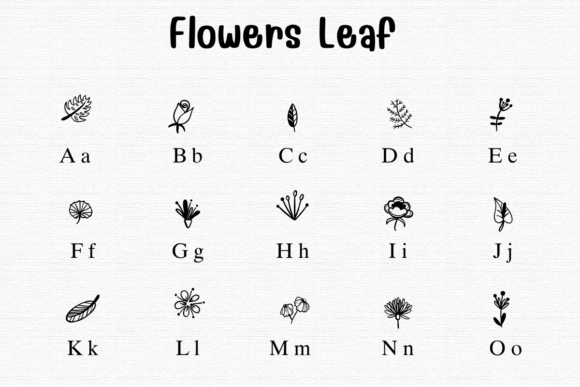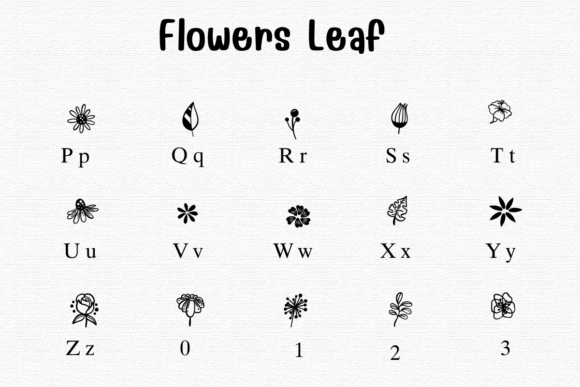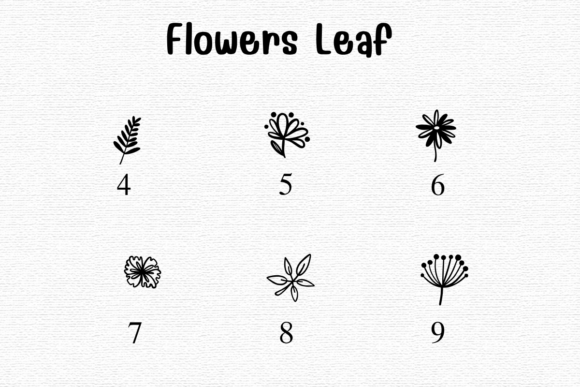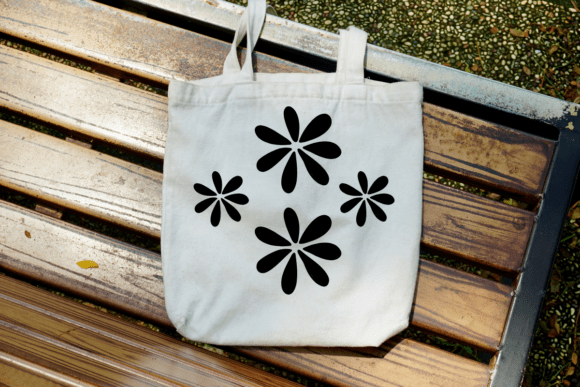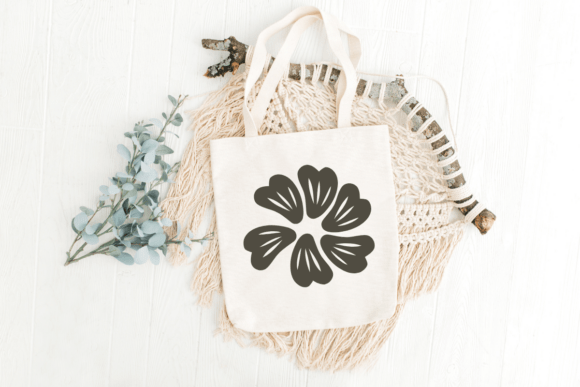
Introducing Flowers Leaf Font: A Delightful Addition to Your Design Arsenal
Are you a designer, crafter, or creative enthusiast looking for a unique and versatile font to elevate your projects? Look no further than the Flowers Leaf Font, a charming and whimsical typeface that is sure to capture the hearts of those who appreciate the beauty of nature. In this article, we’ll explore the features and benefits of Flowers Leaf Font, and how it can be used to add a touch of elegance and playfulness to your designs.
What is Flowers Leaf Font?
Flowers Leaf Font is a carefully crafted typeface that combines the delicate beauty of flowers and leaves with a modern and artistic twist. This font is perfect for designers who want to add a touch of whimsy and charm to their projects, whether it’s for a branding campaign, a DIY craft, or a creative art piece. With its intricate details and curly flourishes, Flowers Leaf Font is sure to make your designs stand out from the crowd.
Key Features of Flowers Leaf Font
- Wide Range of Uses: This font is perfect for various design projects, including but not limited to, logos, branding, social media graphics, crafts, and digital art.
- Unique and Whimsical: The font’s unique design, inspired by flowers and leaves, adds a touch of elegance and playfulness to any design project.
Exploring the Coloring Outline and Dingbats Features
One of the standout features of Flowers Leaf Font is its inclusion of coloring outline and dingbats. These features allow designers to add an extra layer of creativity to their projects. The coloring outline feature provides a detailed structure that can be filled with colors, patterns, or textures, while the dingbats offer a set of decorative symbols and icons that can be used to embellish designs.
Whether you’re creating a doodle cartoon, a craft project, or a professional design piece, the coloring outline and dingbats in Flowers Leaf Font offer endless possibilities for customization and creativity.
Flowers Leaf Font is a delightful and versatile typeface that offers designers and crafters a unique way to add a touch of nature-inspired beauty to their projects. With its multiple formats, compatibility with popular design software, and features like coloring outlines and dingbats, Flowers Leaf Font is an excellent addition to any creative arsenal. Whether you’re a professional designer or a DIY enthusiast, this font is sure to inspire and elevate your designs.